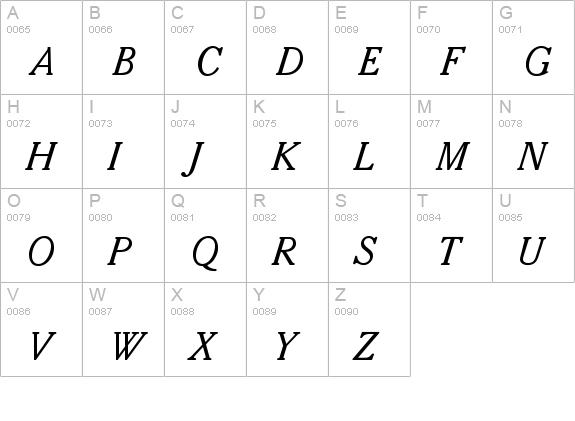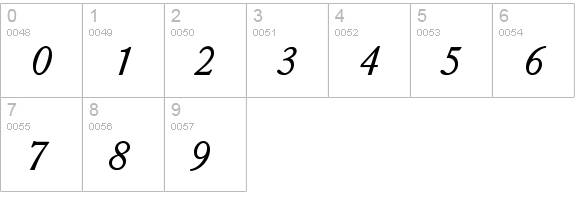
Sorbonne Italic Font Details
Sorbonne Italic is a distinctive, italic variant in the Sorbonne typeface family \xE2\x80\x94 well suited to design and typography projects.
Sorbonne Italic font is a stunning addition to any typographic project, designed to captivate and inspire. With its elegant and sophisticated letterforms, this font effortlessly combines classic beauty with a modern twist. The italicized slant adds a touch of dynamism and flair, making it perfect for conveying a sense of style and elegance. What sets Sorbonne Italic font apart is its versatility. Whether it's used for formal invitations, branding materials, or editorial designs, this font adapts flawlessly to any context, elevating the overall aesthetic and leaving a lasting impression. Its sleek and refined appearance ensures readability, even at smaller sizes, making it suitable for both print and digital mediums. And the best part? Sorbonne Italic font is free! You can easily download this exceptional typeface at FontsMarket.com, allowing you to unleash your creativity without any financial constraints. Don't miss out on this opportunity to enhance your design projects with a font that seamlessly blends sophistication and accessibility. Get your hands on Sorbonne Italic font today and discover the endless possibilities it brings to your typographic endeavors.